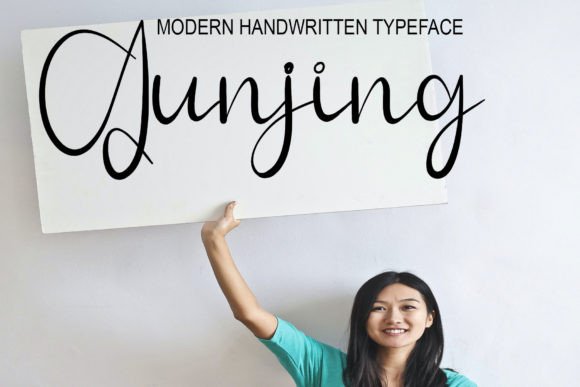
Unveil the Enchanting World of Gunjing Font: A Symphony of Elegance and Originality for Your Creative Endeavors
Welcome to the realm of Gunjing Font, a modern handwritten typeface that captivates hearts with its enchanting beauty and unparalleled versatility. Crafted with meticulous care by the talented Canden Meutuah, Gunjing Font stands as a testament to the boundless power of creativity.
Immerse yourself in the allure of Gunjing Font's flowing lines and graceful curves, reminiscent of the finest calligraphy. Let your imagination soar as you explore the endless possibilities this font presents, from logos and branding that exude sophistication to wedding invitations and greeting cards that radiate warmth and elegance.
With Gunjing Font at your fingertips, transform your business cards into miniature works of art, leaving a lasting impression on clients and colleagues alike. Elevate your social media presence with captivating posts and stories that dance with personality. Unleash your creativity in procreate font, planner prints, and websites, where Gunjing Font's unique playfulness adds a touch of whimsy and delight.
Gunjing Font is a symphony of elegance, a celebration of originality, and an invitation to embark on a creative journey unlike any other. Whether you're a seasoned graphic designer or a passionate crafter, Gunjing Font will ignite your imagination and empower you to bring your creative visions to life.
Embrace the magic of Gunjing Font today and experience the transformative power of its enchanting allure. Let your creativity flourish, and let Gunjing Font guide you towards a world of boundless possibilities.